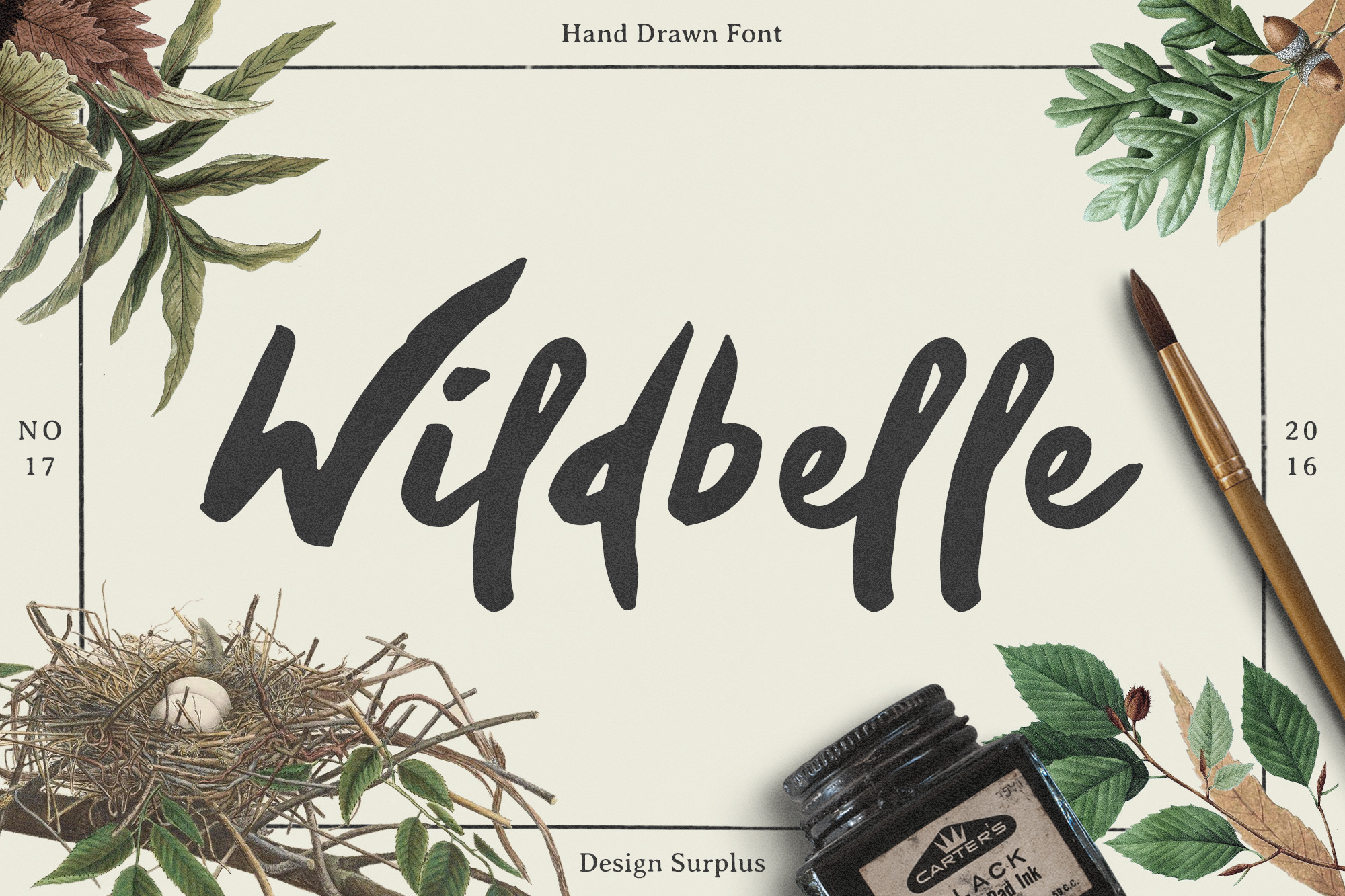
Wildbelle Font
Wildbelle Font is a meeting of mother nature and a jar of japanese ink. This new brush script contains 138 characters with language support.
Wildbelle works brilliantly in branding projects giving your work a rustic, personal touch.